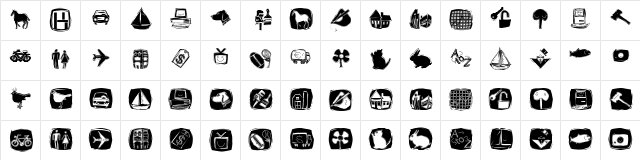
Xmas2002 Regular
Design Context for Xmas2002 Typeface
Xmas2002 is a composed and adaptable typeface that performs quietly and consistently across a wide range of design contexts.